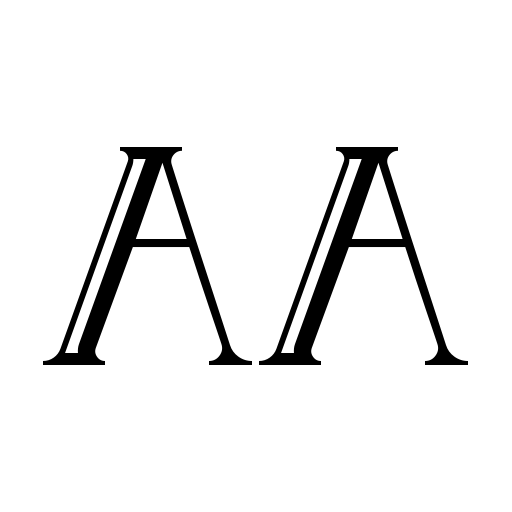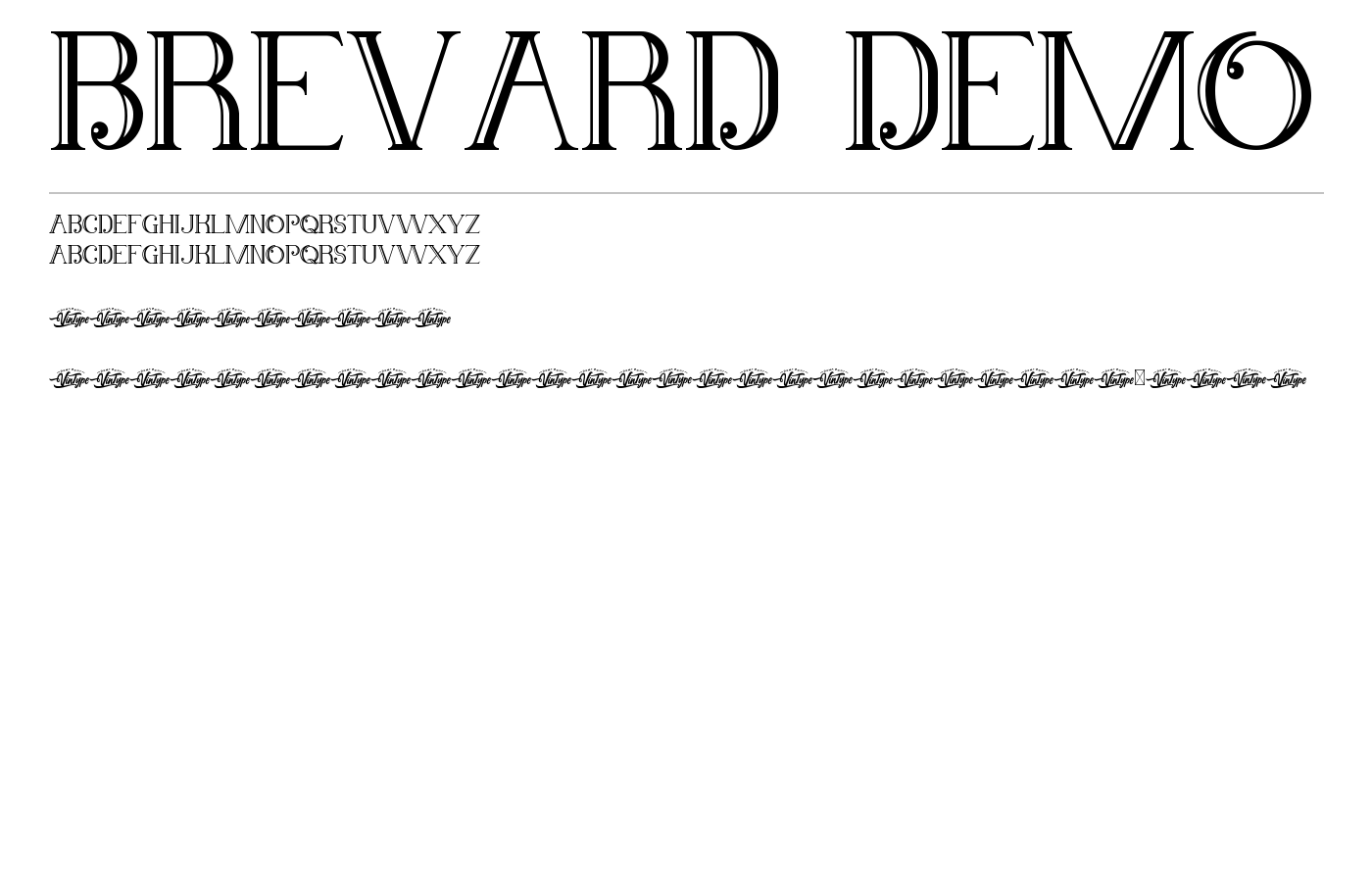
Brevard Demo is a delicate serif font with a refined, high-contrast design that combines sharp geometric accents with elegant curves, especially notable in its distinctive terminals and swashes. Its tall, narrow letterforms and fine lines give it a sophisticated, vintage-inspired feel, ideal for fashion branding, luxury packaging, and elegant headlines where a touch of artistic flair is desired. This font shines in settings that aim to convey exclusivity and style while maintaining readability with its stylish but clear structure.
Brevard Demo Font
About Brevard Demo Font